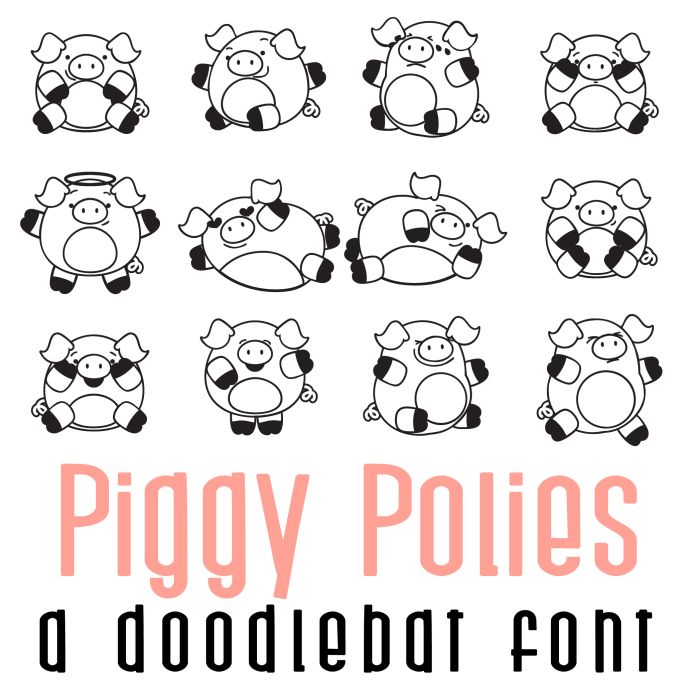
This adorable doodlebat font features 26 piggies of different emotions and expressions. Perfect for cards, crafts, decor, classrooms, planner stickers, scrapbook pages, parties and more!